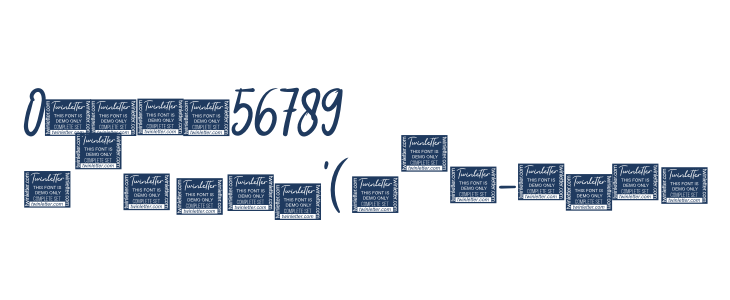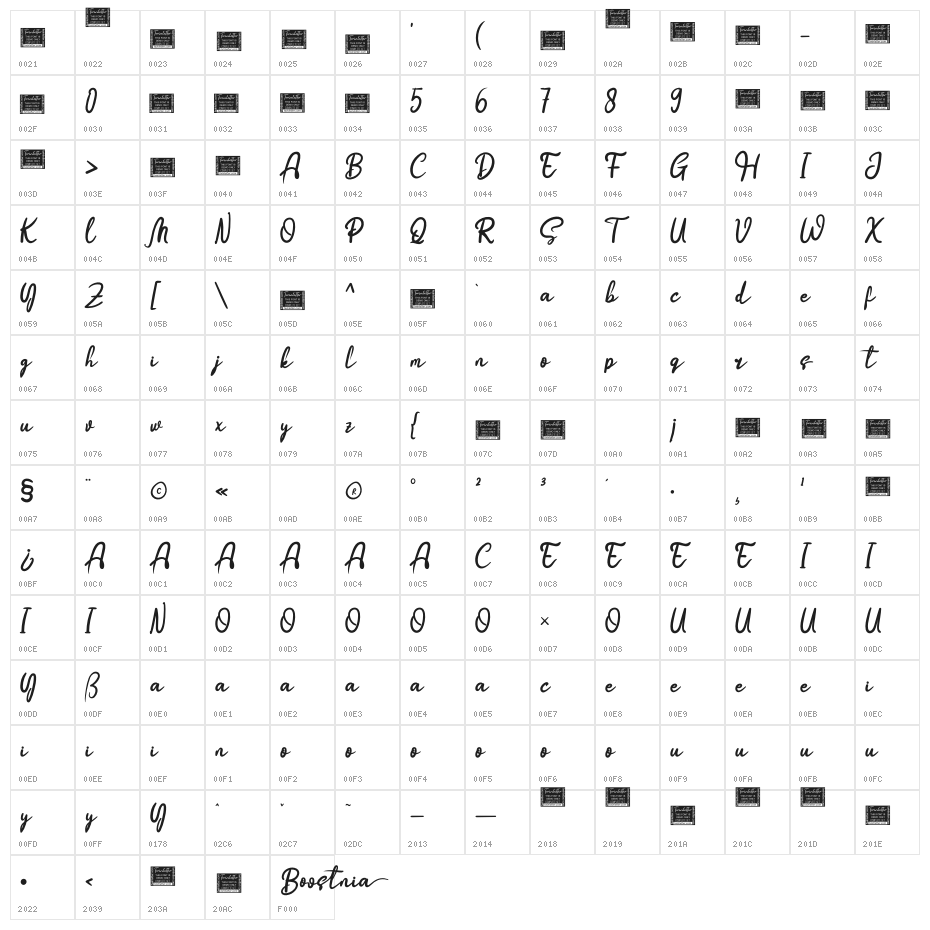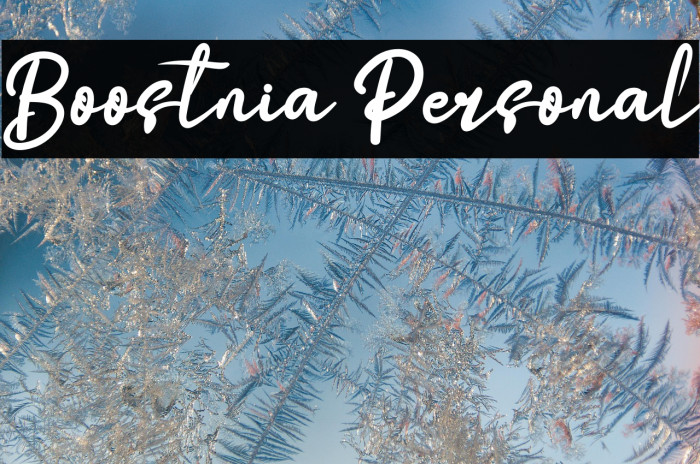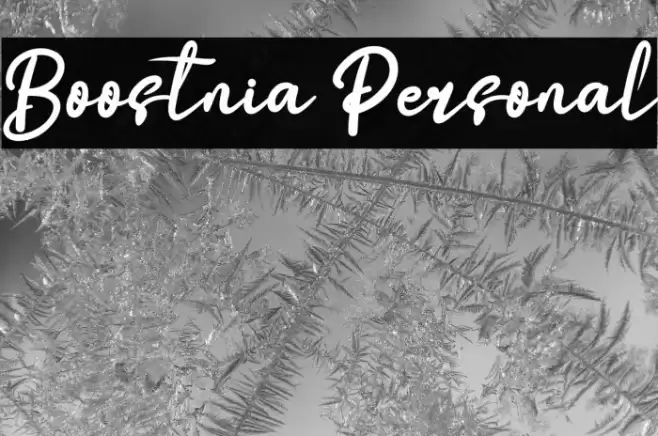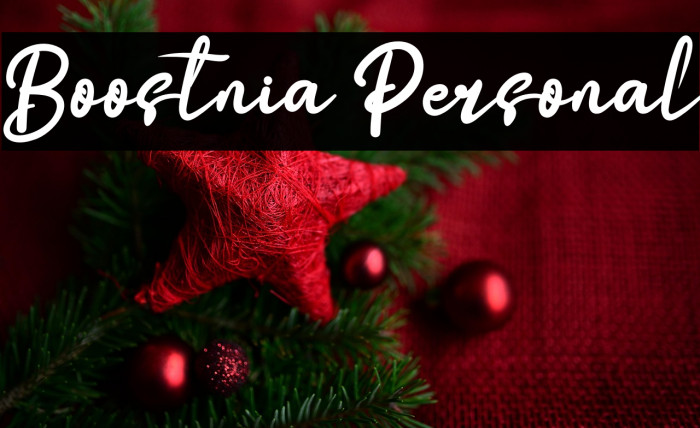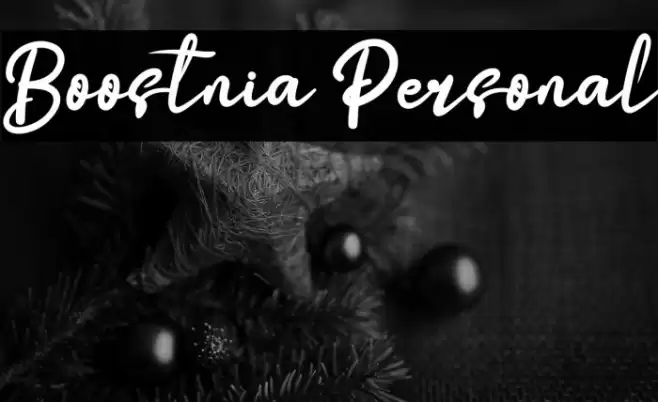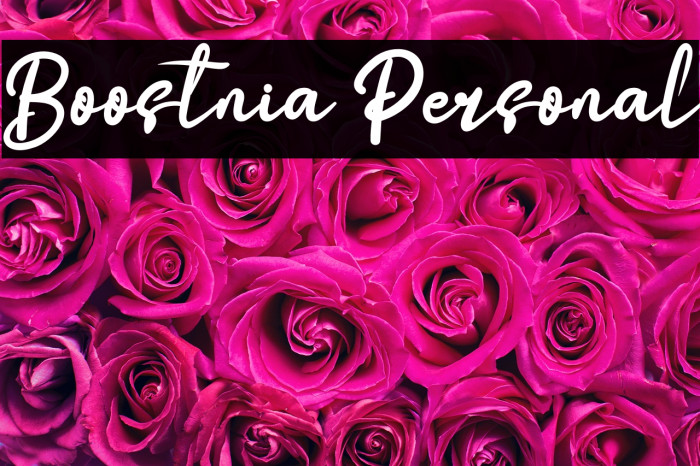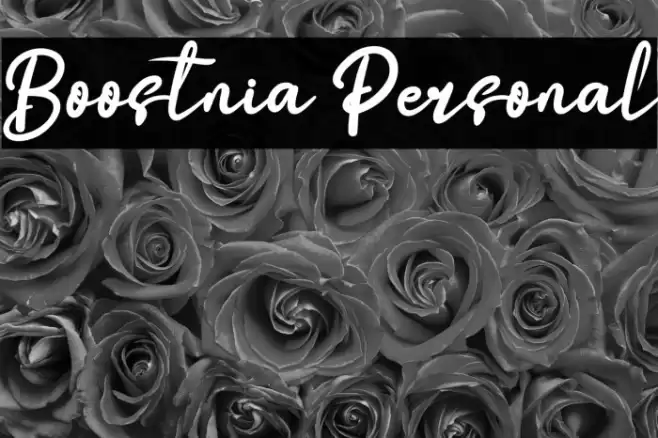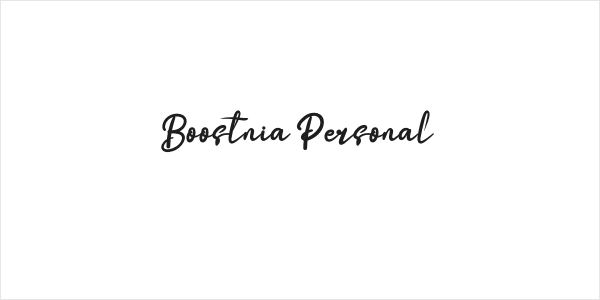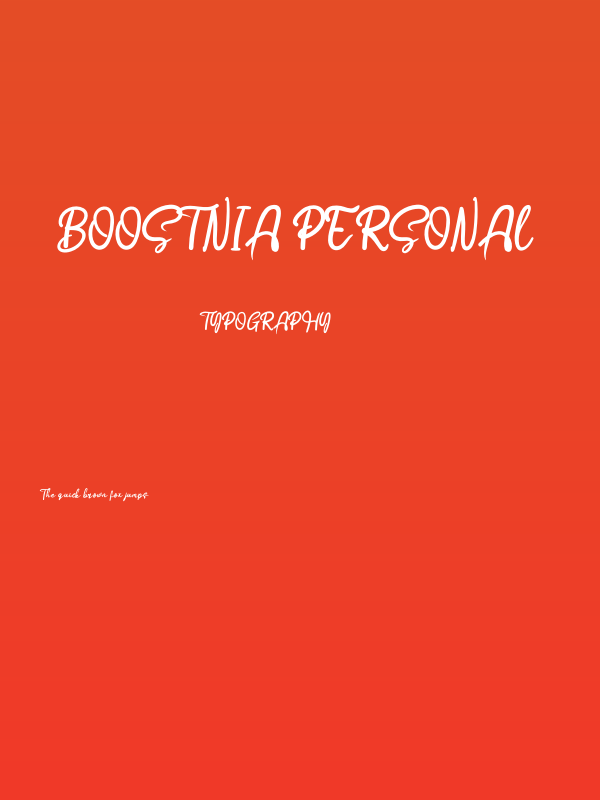
Boostnia Personal Font
Boostnia Personal Description
This font features a flowing, cursive style that exudes elegance and sophistication. The uppercase letters are bold and slightly slanted, giving a dynamic and energetic feel. The lowercase letters maintain a consistent flow, with smooth curves and a natural handwritten appearance. The numerals are clear and legible, matching the overall script style. Special characters are included, maintaining the same fluidity and grace. This font is ideal for projects that require a personal touch, such as invitations, greeting cards, or branding materials.
| Proposed Projects | Ideal for wedding invitations, personal branding, greeting cards, and elegant packaging design. |